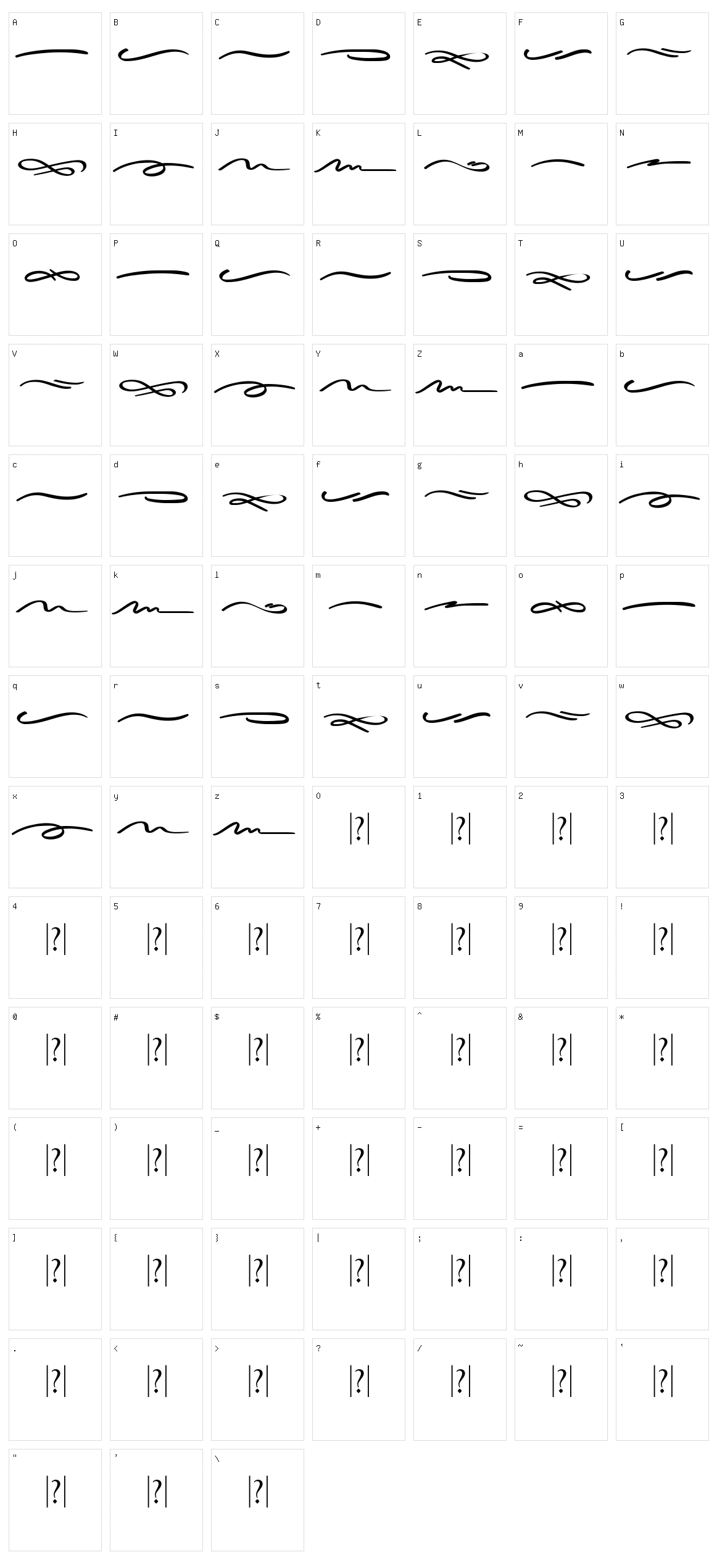
The free font Sieroty is carefully designed by Pen Culture, showcasing a thoughtful balance of creativity and usability and falls under the Script font style. When you download the ZIP file, it contains only 295.18 KB of font files, making it lightweight and quick to download. Please review the license details below to understand permitted usage and distribution rights. If license information is not available, we recommend using this font for personal projects only or contacting the author directly for commercial usage permissions.